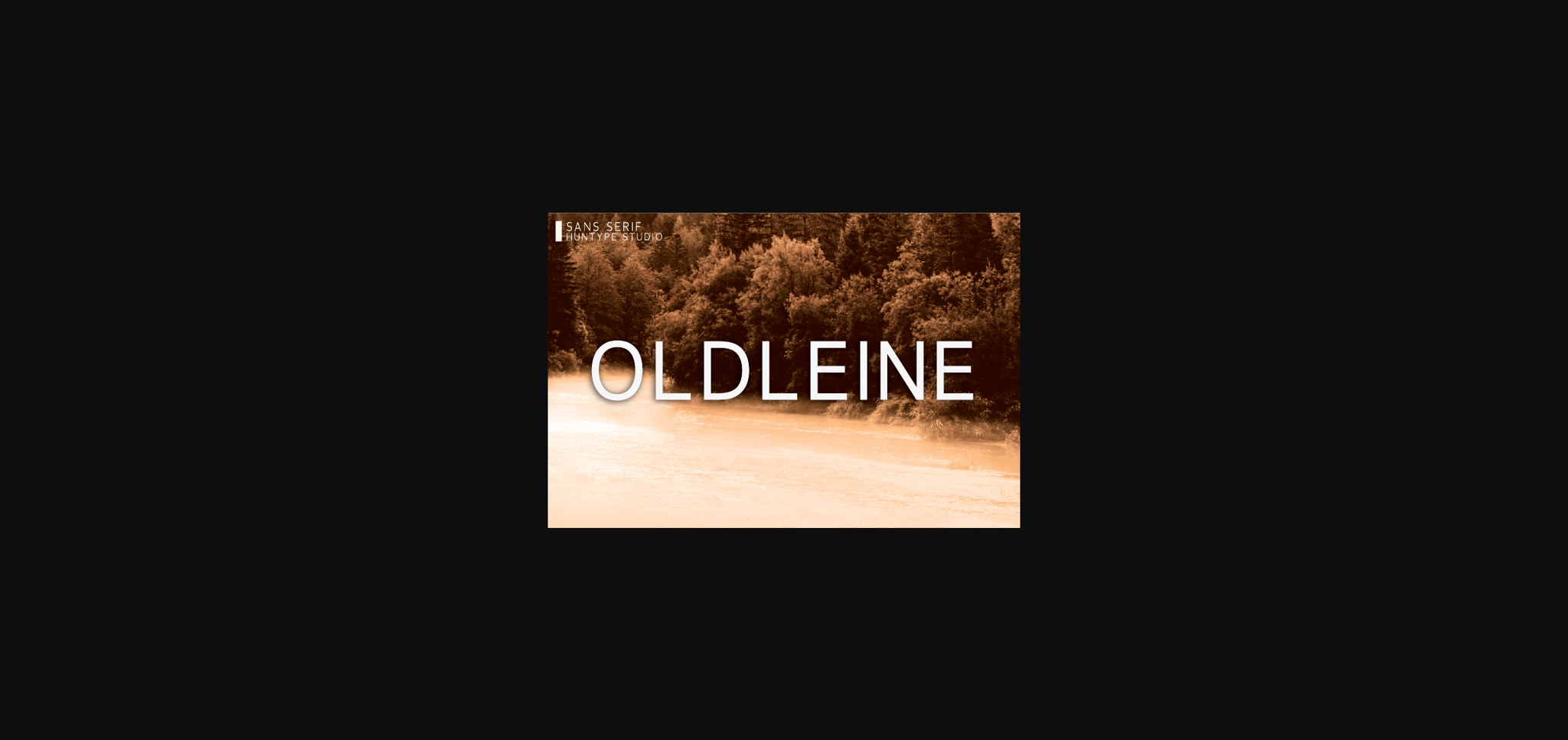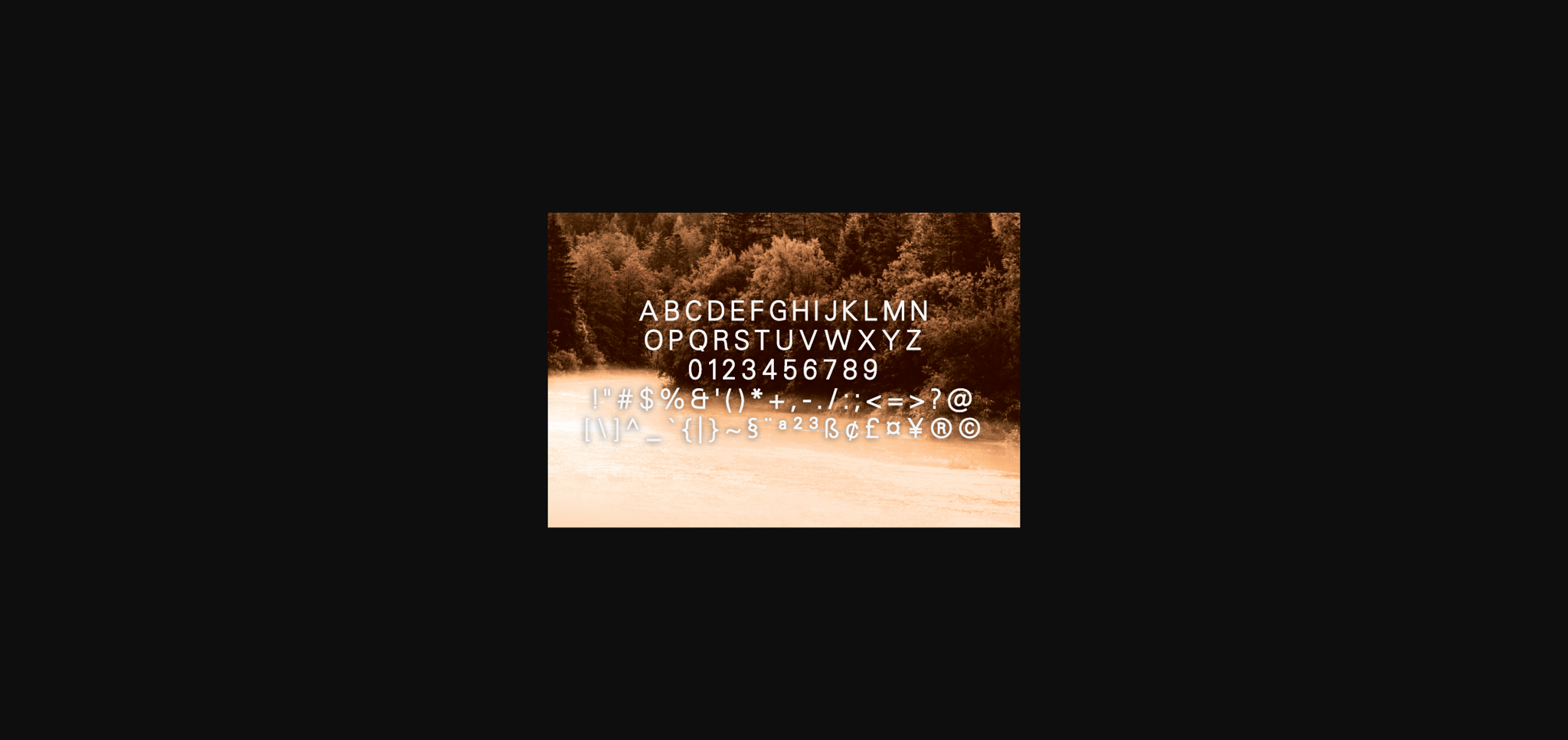
HomeSans Serif FontsOldleine Font Sans Serif Fonts Oldleine Font FacebookXPinterestWhatsApp 1 of 5 ... Oldleine Font Poster 2... Oldleine Font Poster 3... Oldleine Font Poster 4... Oldleine Font Poster 5... About Oldleine Font Oldleine is a thin and simple lettered sans serif font. It is suitable for any branding, product packaging, invitation, quote, t-shirt, label, poster, logo that you wish to develop. DOWNLOAD NOW People also explored Morning Wishes Font Bassed Font Pricillia Font Marjana Font Clove Mandala Monogram Font Virgi Ella Font Glowing Font Amillia Rochete Font Anitta Font 332 0 TagsOldleine Font Previous articleBrodlein FontNext articleVronterm Font LEAVE A REPLY Cancel reply Comment: Please enter your comment! Name:* Please enter your name here Email:* You have entered an incorrect email address! Please enter your email address here Website: Save my name, email, and website in this browser for the next time I comment. Personal Use Free Super Bubbly Font Personal Use Free Read more about this font Beloved Script Personal Use Free Read more about this font Vincent Familiante Personal Use Free Read more about this font Coconote Personal Use Free Read more about this font BLOG Fonts That Capture the Spirit of New York City New York City is more than just a place—it’s an experience, a rhythm, a visual language... 5 Fonts That Will Dominate Design Trends in 2026 Exploring Font Trends Elegant Wedding Invitation Fonts – Handwritten & Script Fonts